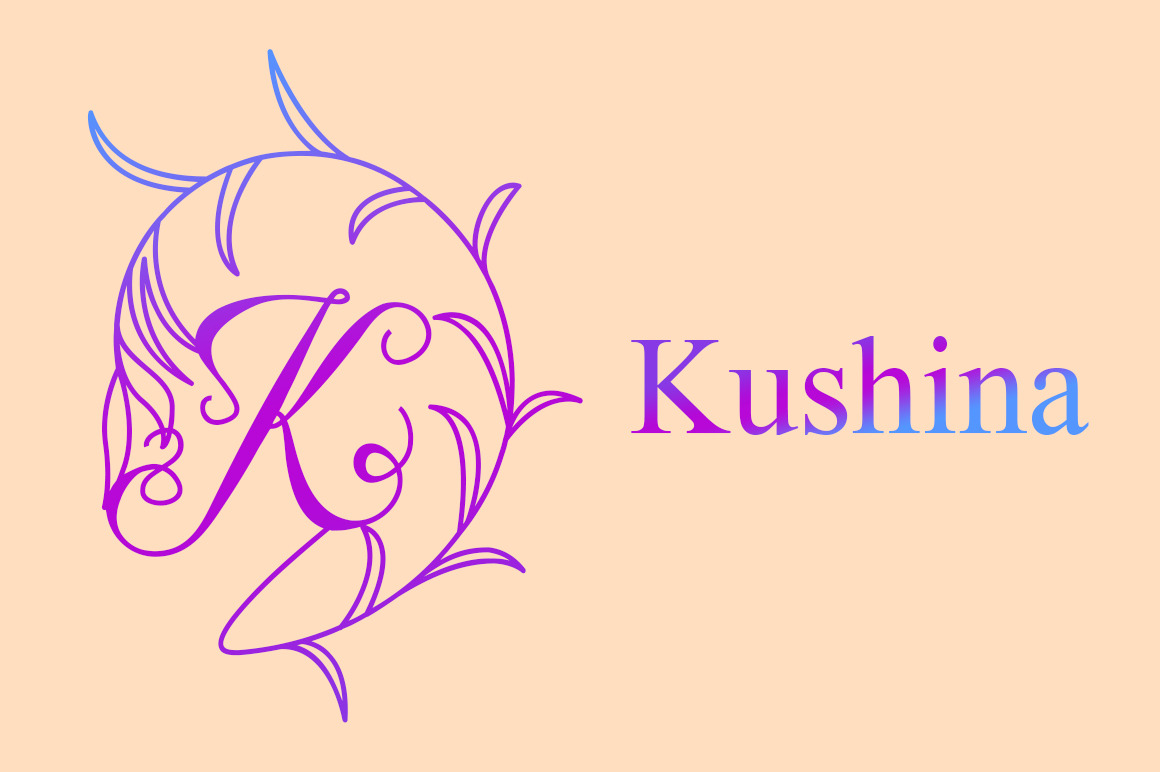
Kushina Monogram Font Logo
Kushina is a lovely and delicate decorative font. No matter the topic, this font will be an incredibly asset to your fonts’ library, as it has the potential to elevate any creation.